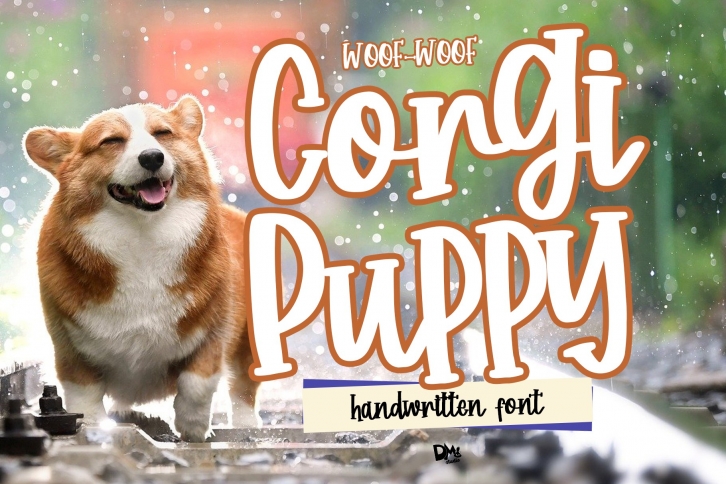
Corgi Puppy is a beautiful font that was designed by DMletterstudio. It's a great choice for designers and creatives who need such a font. It was released on February 7, 2020 and the file size is 20.17 MB. Corgi Puppy may give a more youthful, expressive and casual look to your project. It is a very beautiful, refined, elegant, and high-quality font.